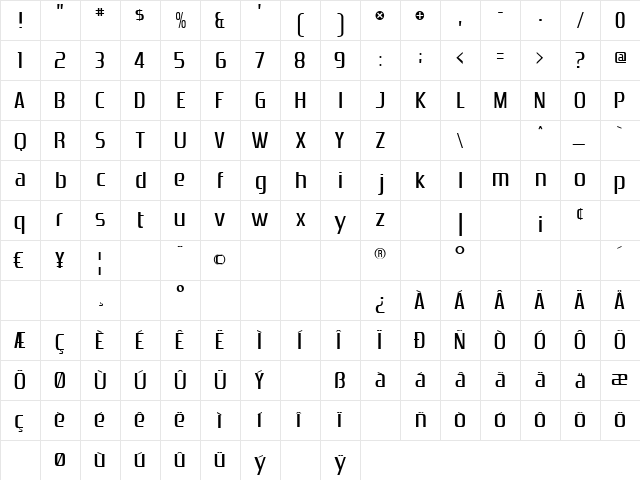
Zrnic Regular
Design Context for Zrnic Typeface
Zrnic offers clean, dependable letterforms without strong stylistic allegiance, making it a practical choice for designers who need flexibility.